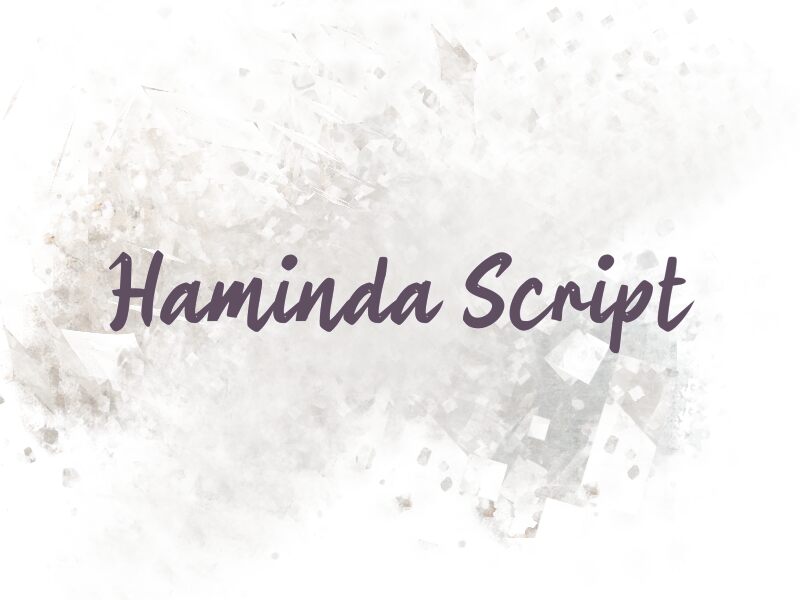
Haminda Script
Haminda Script font is a free brush font by wep whose casual script letters look extremely expressive. A contemporary flair is easily noticeable which pairs well with its energetic flow for creative yet relaxed applications. The subtle natural elements create intricate and interesting visual scenes that draw attention to the harmonic design.
Widely-applicable across many design fields, Haminda Script can be used in book covers, notebooks, Instagram stories and posts. Other notable possible uses are on business cards, magazines, posters, typography designs, coloring books and brochures among others.